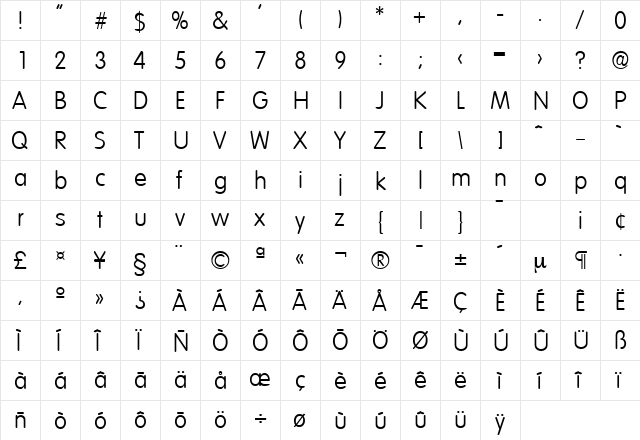
Volkswagen-Serial-Light Regular
Design Context for Volkswagen-Serial-Light Typeface
Volkswagen-Serial-Light takes a measured approach to typography — its balanced proportions and neutral character make it a reliable workhorse for both digital and print work. Its slender proportions lend an understated elegance to any composition.